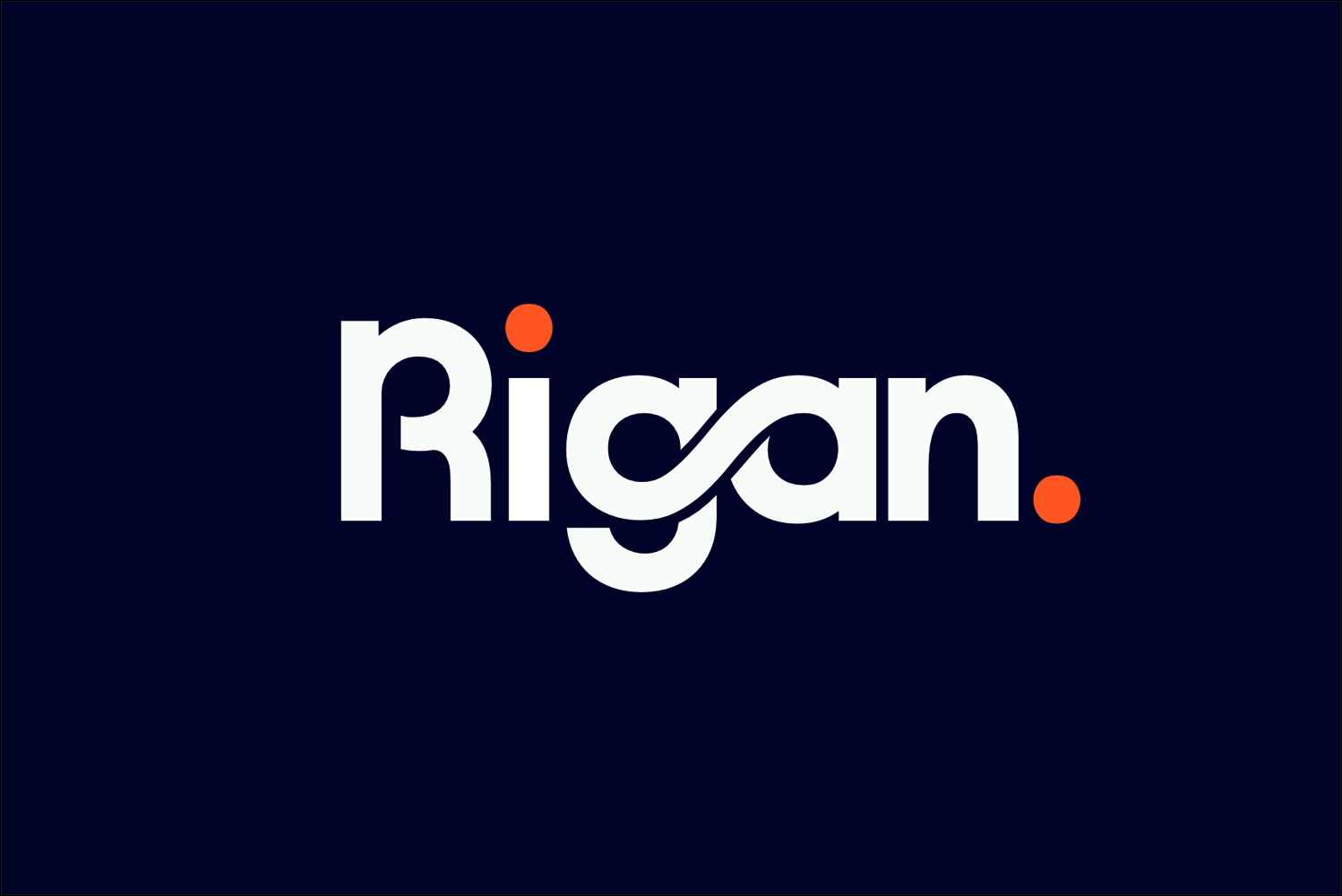
Rigan
Rigan Font is a meticulously crafted typeface designed specifically for logos, branding, headers, and titling. With precise kerning and spacing tailored for impactful logos and branding materials, iBrand Font ensures your designs make a lasting impression. Please note, Rigan Font is not suitable for body text, but excels in visual applications where every detail matters. Elevate your design projects with Rigan Font today.